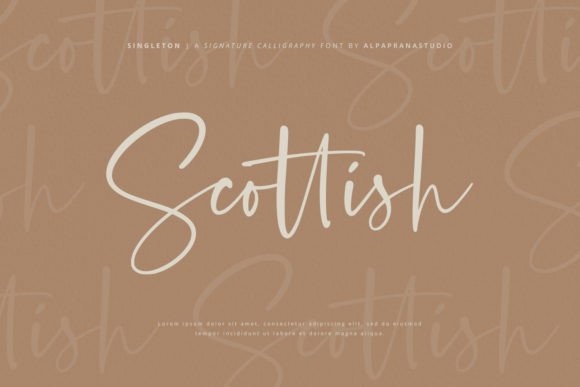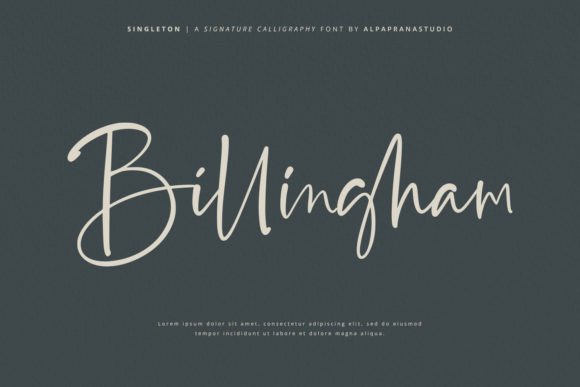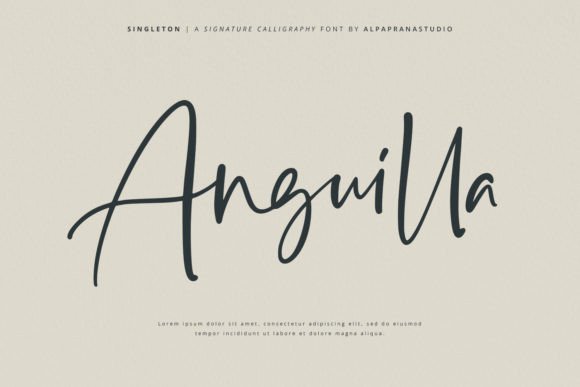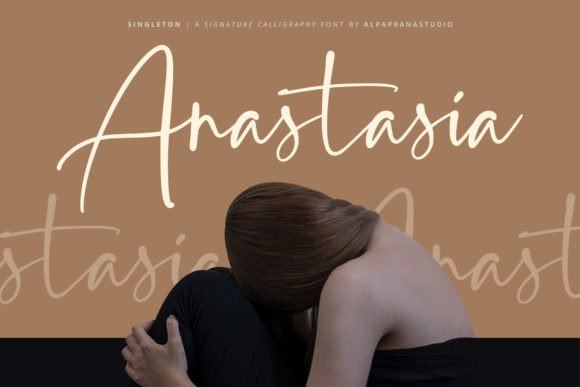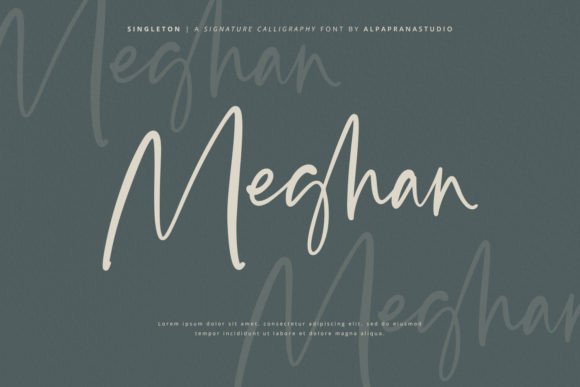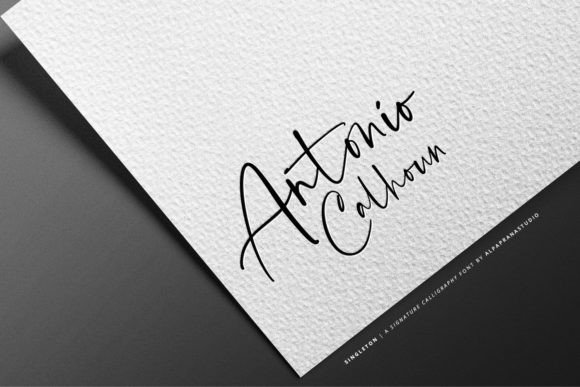
Introduction to Singleton Font
Remember that moment when a font just clicked and your entire creative project came together? For designers, it’s a thrill unlike any other – the perfect combination of style and functionality that elevates their work from good to great. That’s exactly what the Singleton Font offers: a harmonious blend of natural and modern feels that will make your designs stand out.
As a valuable design resource, the Singleton Font is perfect for branding, logo design, and lettering projects. Its versatility and high-quality aesthetic make it an excellent choice for various creative endeavors, from magazine covers and packaging to photography and special events. With its transparent background and free download option, designers can easily incorporate it into their work, making it a must-have in their design arsenal.
Whether you’re a seasoned pro or a budding designer, the Singleton Font is an essential addition to your toolkit. Its modern and natural feel will bring a touch of sophistication to your designs, making it a valuable asset for any creative project.
Key Features of Singleton Font
- High-quality design resource with a unique and creative aesthetic, perfect for various projects.
- Comes in a single weight, ideal for those who want a consistent look across their design project.
Honest Review: Singleton Font
I recently had the chance to work with the Singleton Font, a design resource that has been gaining popularity among creatives. In this review, I’ll share my honest thoughts on its performance and features.
- High-quality typography: The Singleton Font boasts a clean and modern design that makes it perfect for a wide range of creative projects.
- Transparent background: This feature allows for seamless integration with other design elements and backgrounds.
- Limited character set: The Singleton Font has a limited character set, which may not be ideal for projects that require a wide range of characters.
- No bold or italic styles: The font lacks bold and italic styles, which can make it less versatile for certain design applications.
Overall, the Singleton Font is a solid design resource that excels in terms of typography and transparency. However, its limitations in terms of character set and style options may be a drawback for some designers. As a free download, it’s definitely worth considering for your next creative project.
Singleton Font
What is Singleton Font?
Singleton Font is a high-quality design resource that can elevate your creative project with a unique and professional touch. This versatile font can be used in various applications, from digital designs to print materials.
Using Singleton Font in Your Creative Project
Tips for Getting the Most Out of Singleton Font
To get the most out of Singleton Font, use it in combination with other design elements to create a cohesive look. Experiment with different font sizes, colors, and styles to find the perfect balance for your creative project.
Singleton Font is perfect for a variety of use cases, including:
- Graphics and illustrations
- Web design and digital materials